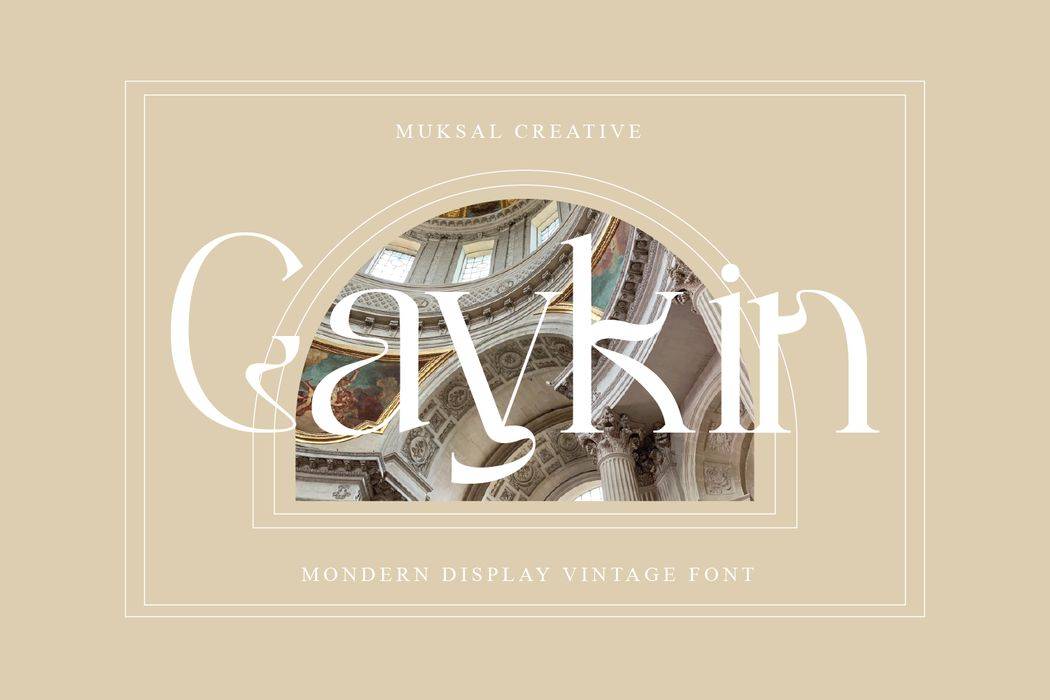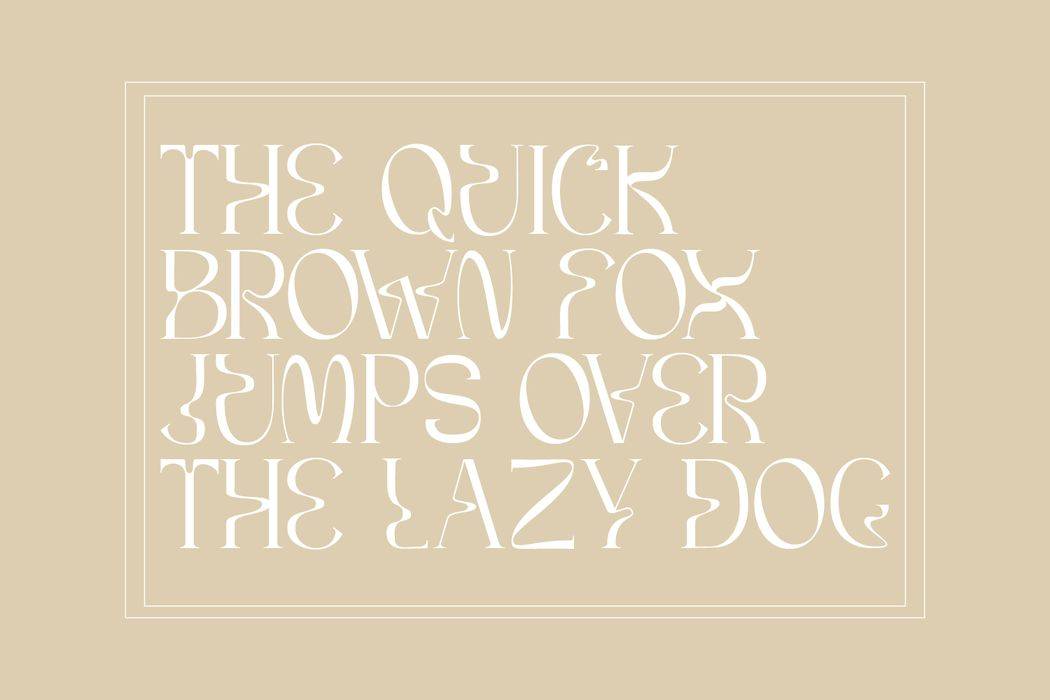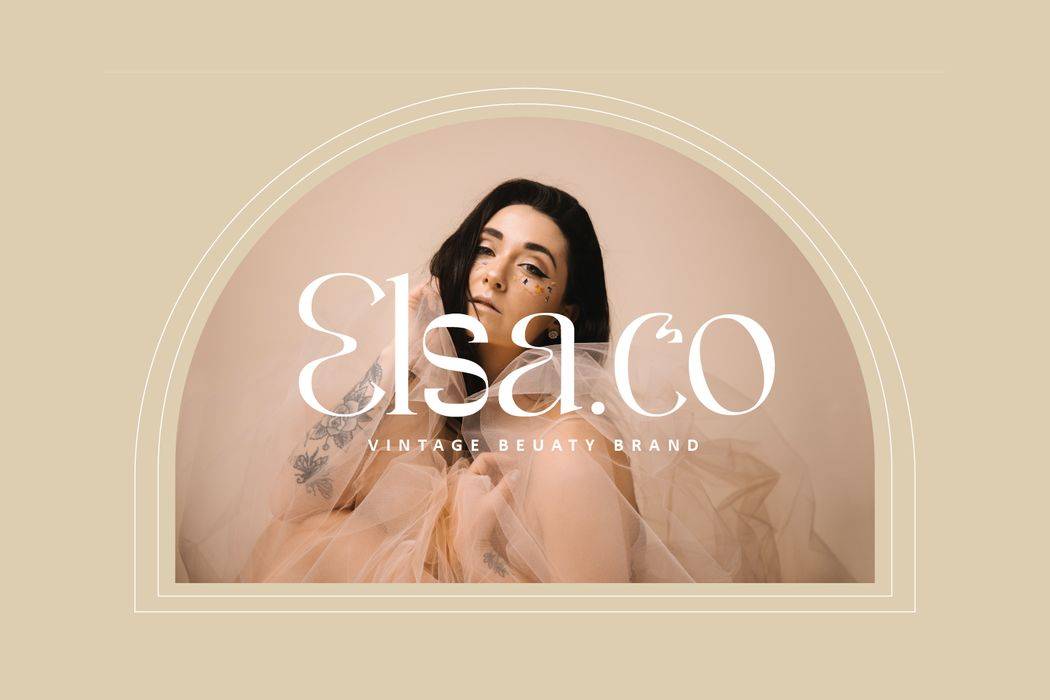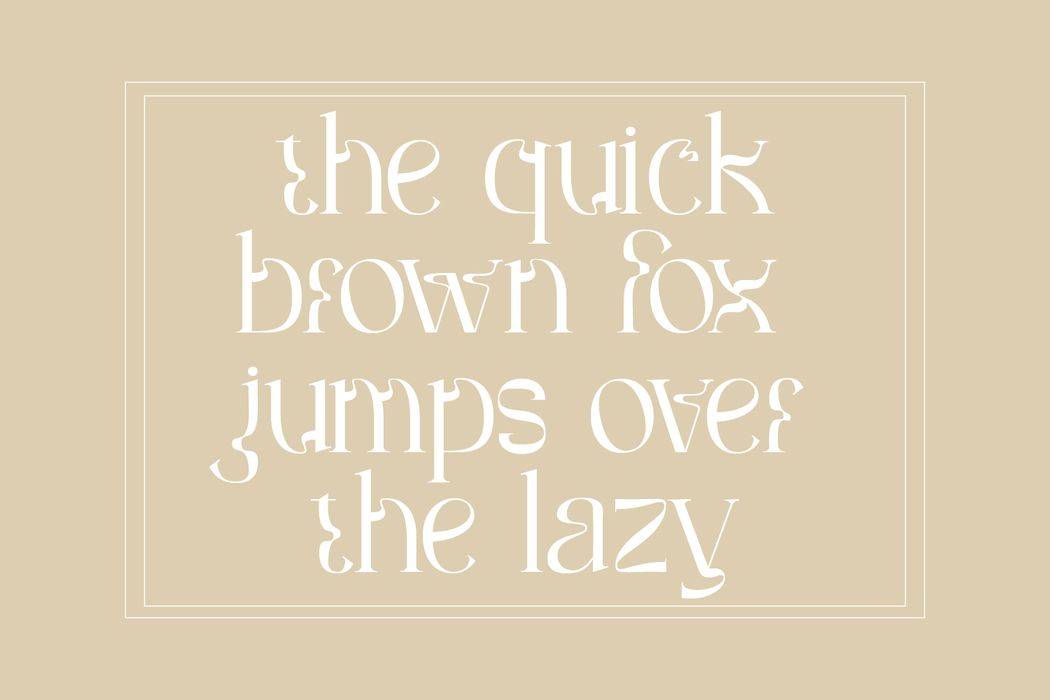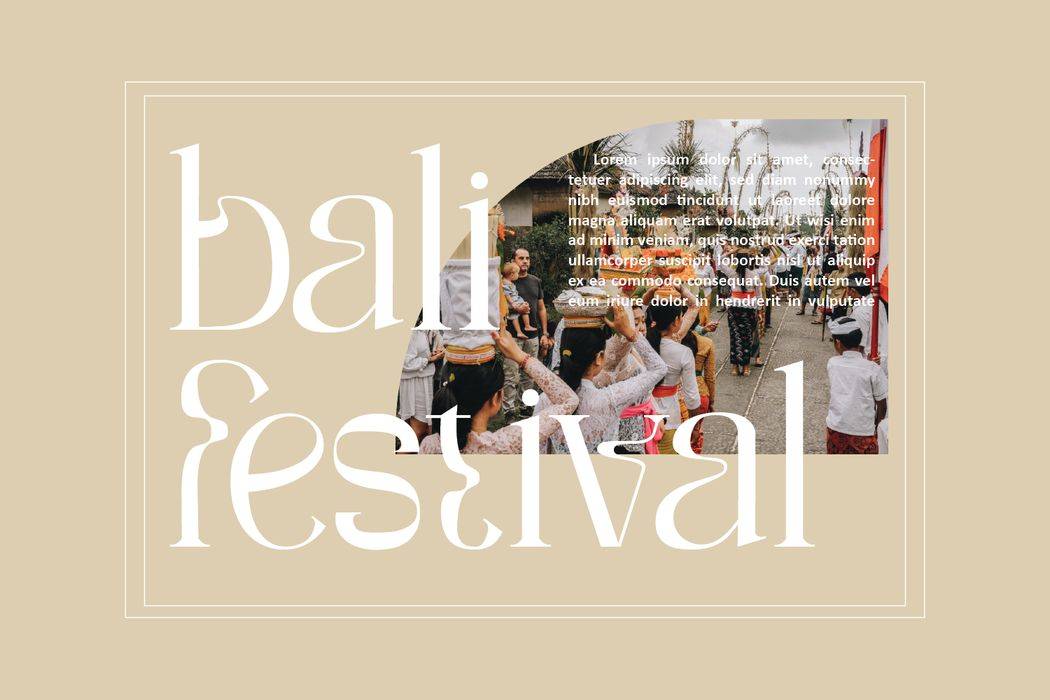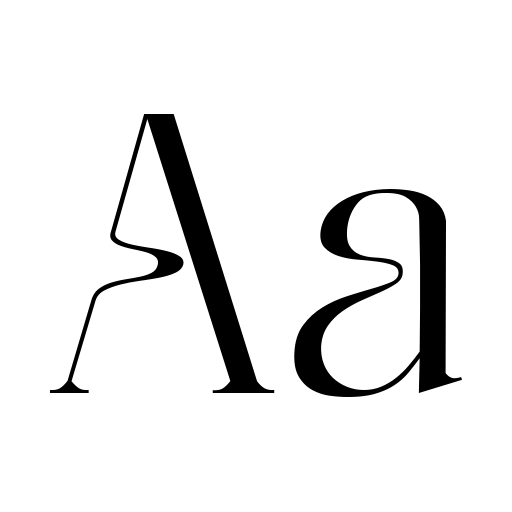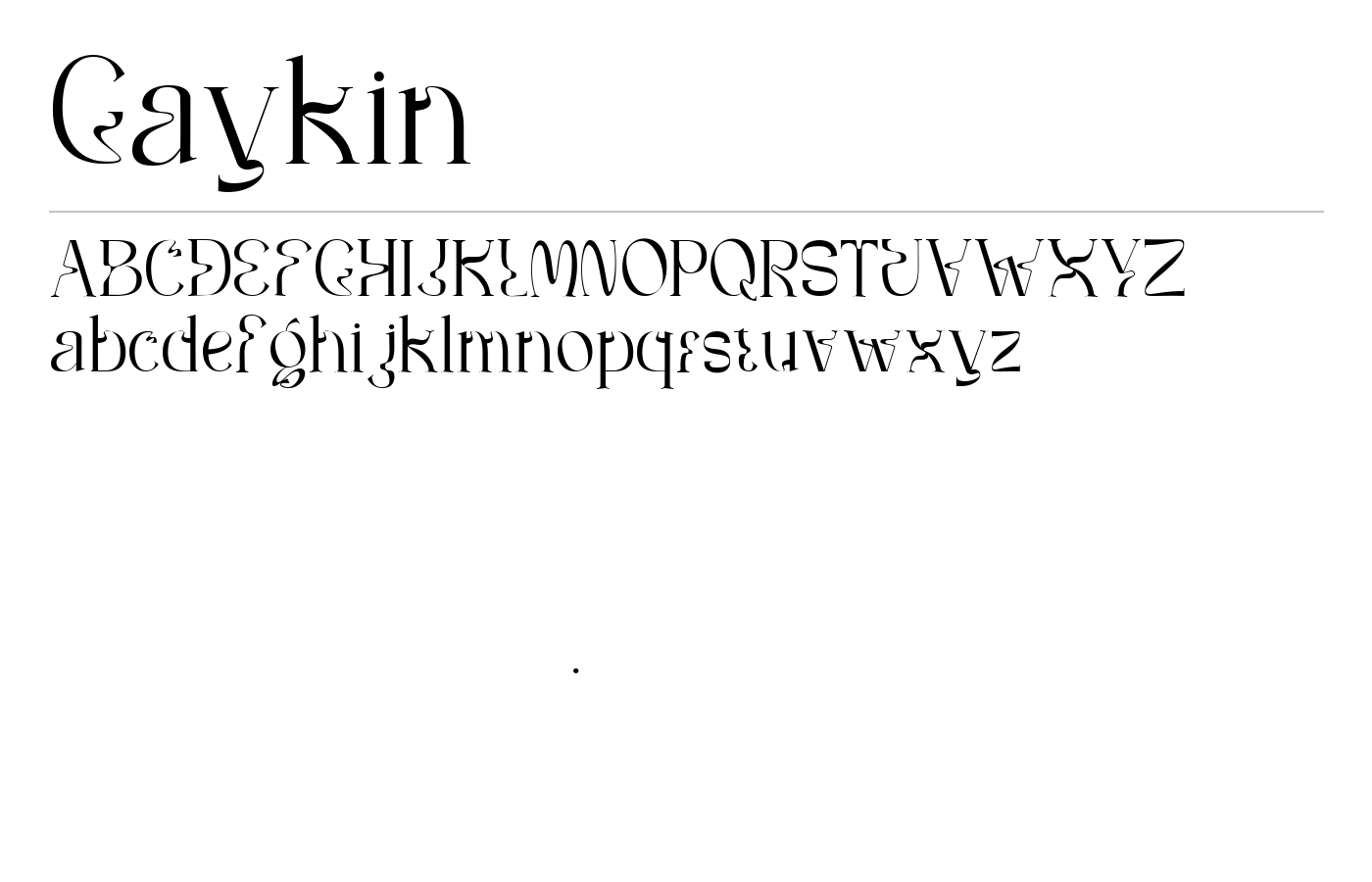
Gaykin is a distinctive serif font with a high-contrast, elegant style marked by sharp, delicate serifs and unique flourishes that give it a slightly whimsical and artistic feel. Its narrow proportions and decorative letterforms make it ideal for creative headlines, branding, and design projects seeking a touch of sophistication and originality. This font works best where a blend of classic elegance and modern flair is desired, such as in fashion logos or editorial titles.
Gaykin Font
About Gaykin Font